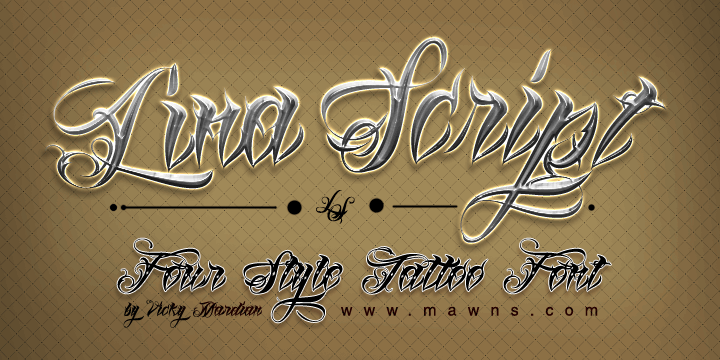
Introducing you to the absolutely beautiful free lina script font. Download this free font from the original source of Font Space. Easily amaze your audience with this beautiful font and make your graphic designs pop up from the crowd.